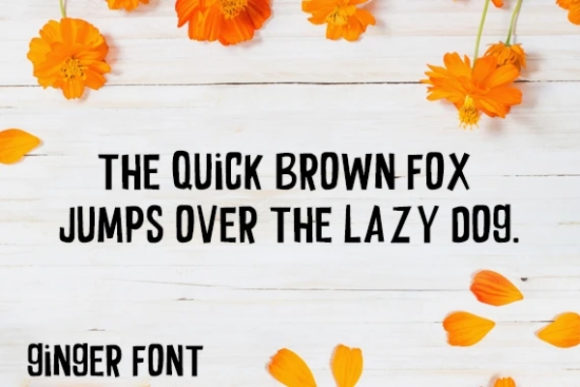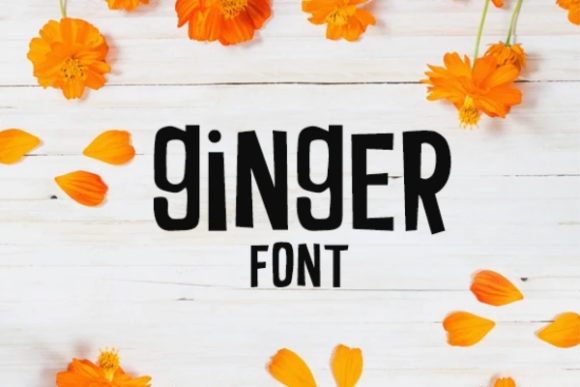
Ginger Font: The Perfect Choice for Designers and Crafters
In the world of typography, fonts play a crucial role in making a design project stand out. With thousands of fonts available, it can be overwhelming to choose the right one. However, if you’re looking for a bold display font that exudes casual charm and versatility, look no further than Ginger Font. In this article, we’ll explore the unique features of Ginger Font and why it’s a must-have for designers and crafters.
What is Ginger Font?
Ginger Font is a bold display font designed to add a touch of personality to any design project. Its unique blend of casual charm and boldness makes it perfect for creating eye-catching logos, branding materials, social media graphics, and crafty DIY projects. Whether you’re a professional designer or a crafter, Ginger Font is an excellent choice for anyone looking to add some flair to their designs.
Key Features of Ginger Font
So, what makes Ginger Font so special? Here are some of its key features:
• Bold and Eye-Catching: Ginger Font is a bold display font that’s designed to grab attention. Its thick lines and unique letterforms make it perfect for creating eye-catching headlines and titles.
• Casual Charm: Unlike other bold fonts, Ginger Font has a casual charm that makes it appear down-to-earth and approachable. This makes it perfect for designs that require a friendly and approachable tone.
• Readable: Despite its boldness, Ginger Font is incredibly readable, even at smaller sizes. This makes it perfect for use in a variety of design projects, from logos and branding materials to social media graphics and crafty DIY projects.
• Versatile: Ginger Font is an incredibly versatile font that can be used in a wide range of design projects. Whether you’re creating a logo, a social media graphic, or a crafty DIY project, Ginger Font is an excellent choice.
Uses of Ginger Font
So, what can you use Ginger Font for? The possibilities are endless! Here are some ideas to get you started:
• Logos and Branding: Ginger Font is perfect for creating eye-catching logos and branding materials. Its boldness and casual charm make it an excellent choice for businesses that want to appear friendly and approachable.
• Social Media Graphics: Use Ginger Font to create eye-catching social media graphics that grab attention. Its readability and versatility make it perfect for use in a variety of social media platforms.
• Crafty DIY Projects: Ginger Font is also perfect for crafty DIY projects, such as handmade cards, invitations, and scrapbooking. Its casual charm and boldness make it an excellent choice for adding a personal touch to your DIY projects.
• Signage and Posters: Use Ginger Font to create eye-catching signage and posters that grab attention. Its boldness and readability make it perfect for use in a variety of settings, from events and exhibitions to advertising and marketing.
Tips for Using Ginger Font
Here are some tips for using Ginger Font effectively:
• Use it Sparingly: While Ginger Font is bold and eye-catching, it can be overwhelming if used too much. Use it sparingly to add emphasis and create visual interest.
• Pair it with Other Fonts: Ginger Font pairs well with other fonts, such as sans-serif fonts and script fonts. Experiment with different font combinations to find the perfect look for your design project.
• Experiment with Colors: Ginger Font looks great in a variety of colors, from bold and bright to soft and pastel. Experiment with different colors to find the perfect look for your design project.
Font Name Ginger Font
In conclusion, Ginger Font is a bold display font that’s perfect for designers and crafters looking to add some personality to their design projects. Its casual charm, readability, and versatility make it an excellent choice for a wide range of design projects, from logos and branding materials to social media graphics and crafty DIY projects. With its unique features and endless uses, Ginger Font is a must-have for anyone looking to take their designs to the next level.